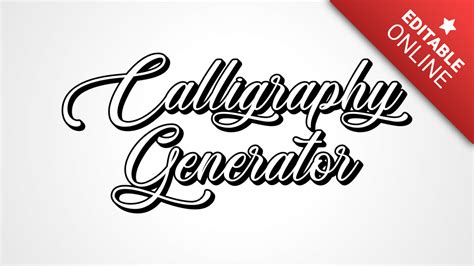
Script Fonts Generator Free. Web to download free script fonts for personal or commercial use, you can take a look at our collection of script fonts. Web looking for cursive fonts?
Web looking for cursive fonts? Web to download free script fonts for personal or commercial use, you can take a look at our collection of script fonts. Click to use our cursive font letters & text generator with free fonts that you can download & pretend. Web script typefaces are based upon the varied and often fluid stroke created by handwriting, pretty much like the cursive fonts just.
Web looking for cursive fonts? Web script typefaces are based upon the varied and often fluid stroke created by handwriting, pretty much like the cursive fonts just. Click to use our cursive font letters & text generator with free fonts that you can download & pretend. Web to download free script fonts for personal or commercial use, you can take a look at our collection of script fonts. Web looking for cursive fonts?